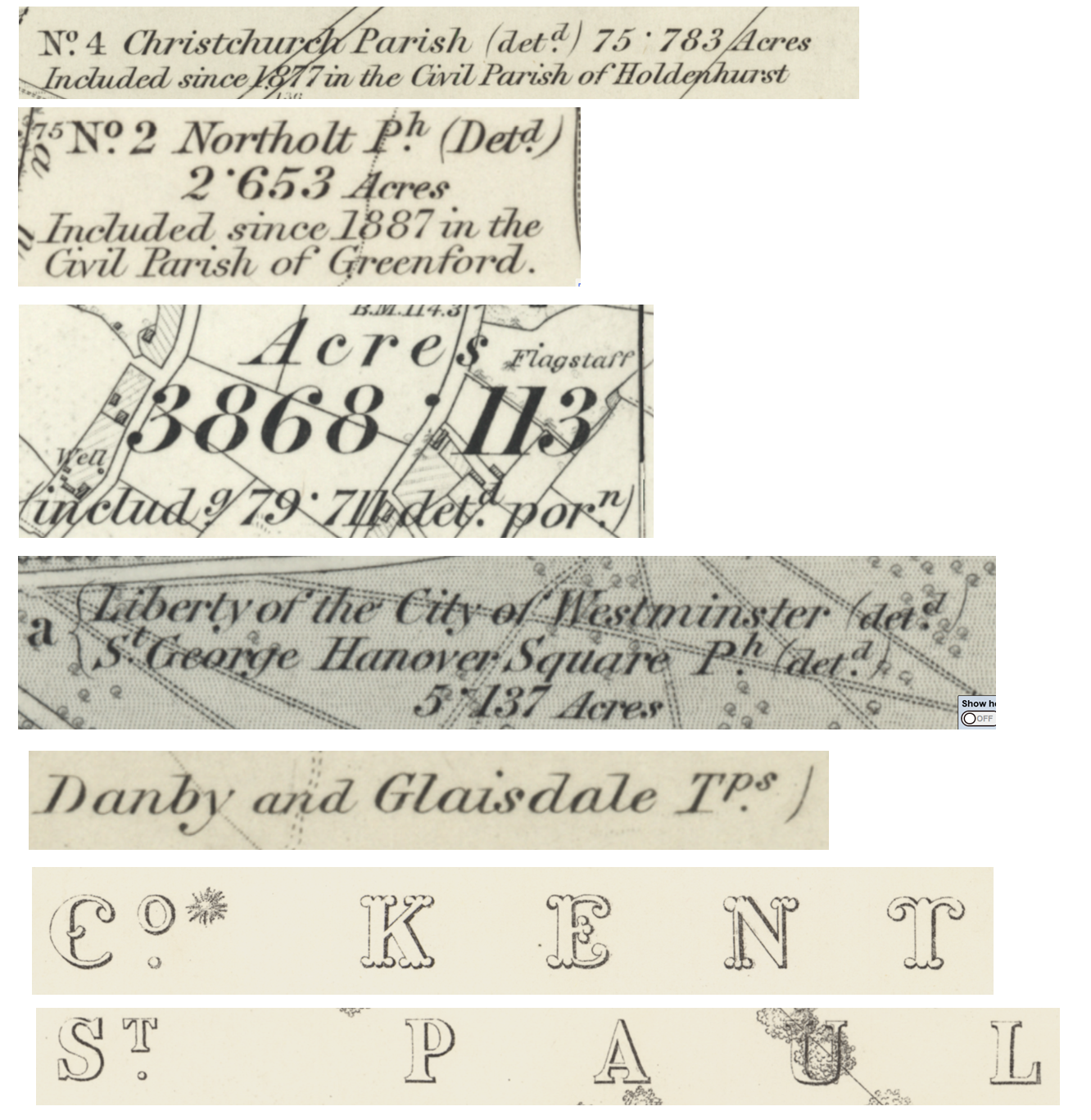
Help: 19th century style of writing abbreviations on maps
Hi all, I have a bit of a query I hoping someone here could help me with.
Is there a way to digitally replicate abbreviations written in this style as used by the Ordnance Survey on their six-inch maps from the 19th century?
In each abbreviation the last letter appears to be superscript with a full stop directly beneath it; but some are inline with the top of the ascender, some not; and the full stop is the same point size as the preceding text.
I've included several examples above, taken from maps available here.
I have seen this style replicated digitally here > "Railway Map of Greater London (2021)" by Mike Hall.
Is there a keyboard command or Unicode character to replicate this way of writing abbreviations?
In which environment would you want to use it?
I am not aware of a way to replicate that in Unicode. As unique code points it doesn’t exist and constructing it out of two characters would get pretty messy and inconsistent.
A good way to go would be to just create a custom version of an Open Source font and add those characters.
In the short-term, you could also type the full stop, then the letter, and negative kern the letter to a position over the full stop. Once you figure out the correct amount for the kerning, you could then create a character style for that superscripted letter that would apply the kerning and superscripting in one shot.
Of course, you'd need a custom character style for each type size/style you are using....